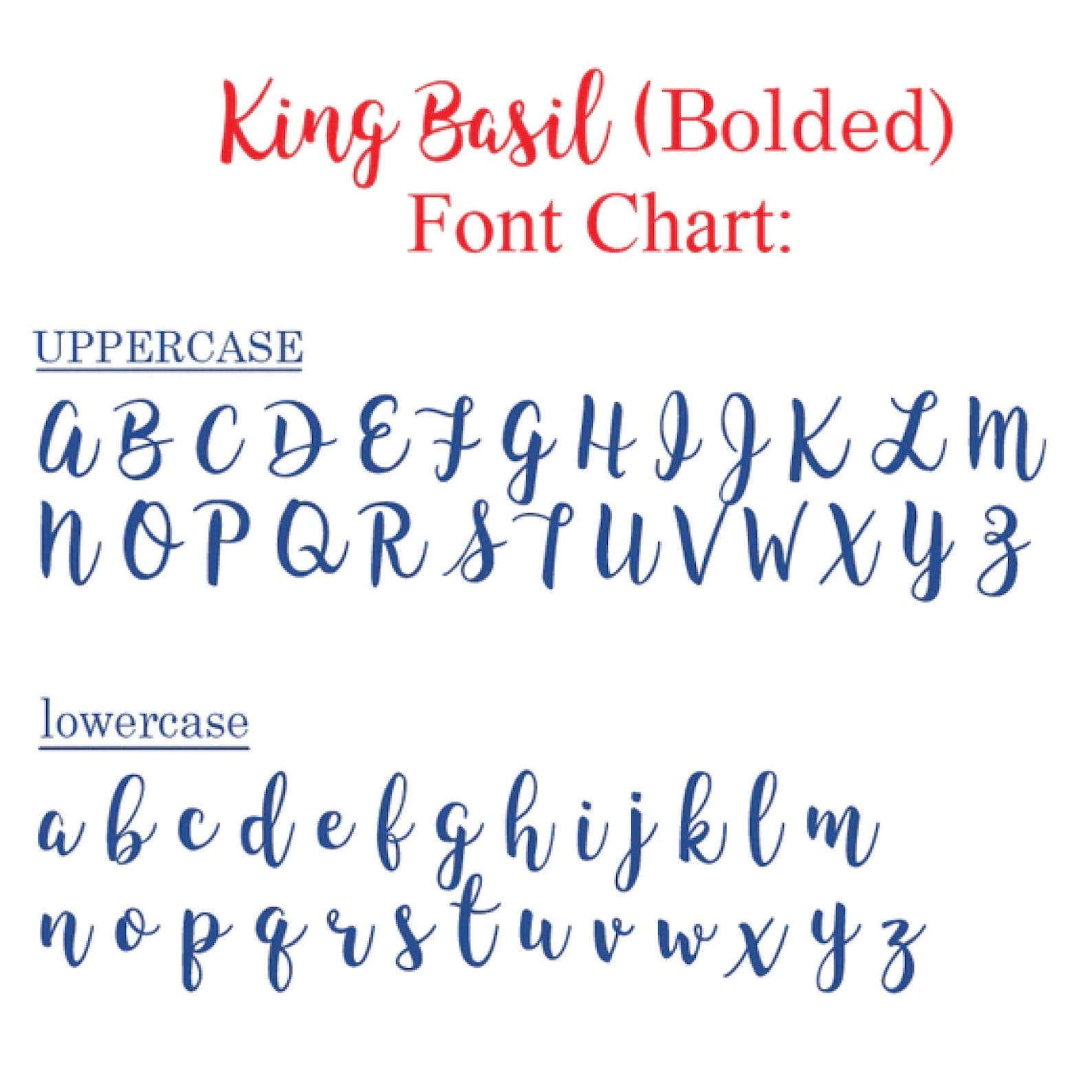
King Basil Font . Introducing king basil (formerly known as spiffy mcgee, before he ascended to the throne), my. King basil is a premium font with 421 glyphs, including swash alternates, ligatures, accented characters and more. King basil is the perfect font for all your fun designs. Introducing king basil (formerly known as spiffy mcgee, before he ascended to. It was drawn with a brush pen and has a playful and elegant style. Introducing king basil (formerly known as spiffy mcgee, before he ascended to. The king basil font was designed by missy meyer. This sucker has a ton of features! Say hello to king basil: The free king basil lite font is a beautiful handmade brush typeface created by the talented missy meyer.
Introducing king basil (formerly known as spiffy mcgee, before he ascended to the throne), my. King basil is a premium font with 421 glyphs, including swash alternates, ligatures, accented characters and more. It was drawn with a brush pen and has a playful and elegant style. Introducing king basil (formerly known as spiffy mcgee, before he ascended to. This sucker has a ton of features! The free king basil lite font is a beautiful handmade brush typeface created by the talented missy meyer. Introducing king basil (formerly known as spiffy mcgee, before he ascended to. The king basil font was designed by missy meyer. King basil is the perfect font for all your fun designs. Say hello to king basil:
King Basil Font This sucker has a ton of features! The free king basil lite font is a beautiful handmade brush typeface created by the talented missy meyer. Introducing king basil (formerly known as spiffy mcgee, before he ascended to the throne), my. It was drawn with a brush pen and has a playful and elegant style. King basil is the perfect font for all your fun designs. This sucker has a ton of features! Introducing king basil (formerly known as spiffy mcgee, before he ascended to. The king basil font was designed by missy meyer. King basil is a premium font with 421 glyphs, including swash alternates, ligatures, accented characters and more. Introducing king basil (formerly known as spiffy mcgee, before he ascended to. Say hello to king basil: